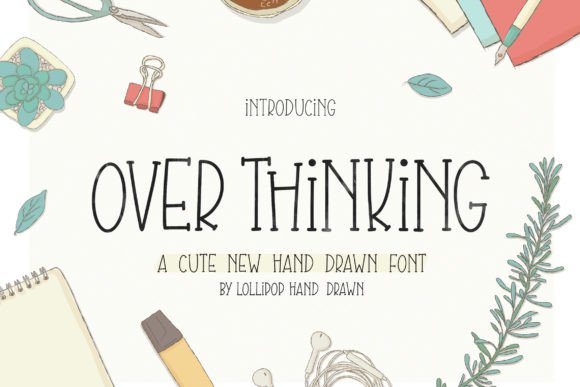
Introducing the Overthinking Font, a delightful and whimsical addition to your script font collection. Created by Lollipop Hand Drawn, this font is perfect for those who want to add a touch of playfulness and personality to their designs.
The Overthinking Font boasts a unique and quirky design that is sure to catch the eye of anyone who sees it. Its beautifully crafted characters are well-balanced, making it a versatile option for a wide range of projects. Whether you're designing a logo, creating invitations, or just adding some flair to your social media posts, this font is sure to elevate your work to the next level.
With the Overthinking Font, you can unleash your creativity and let your imagination run wild. Its handwritten style adds a personal touch to any project, making it perfect for those who want to stand out from the crowd. The Font For A Script is the perfect choice for anyone who wants to inject some fun and whimsy into their designs.